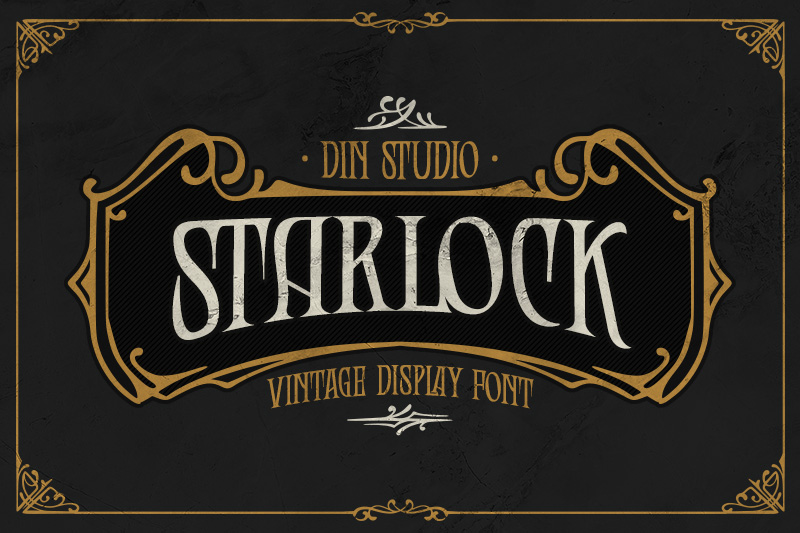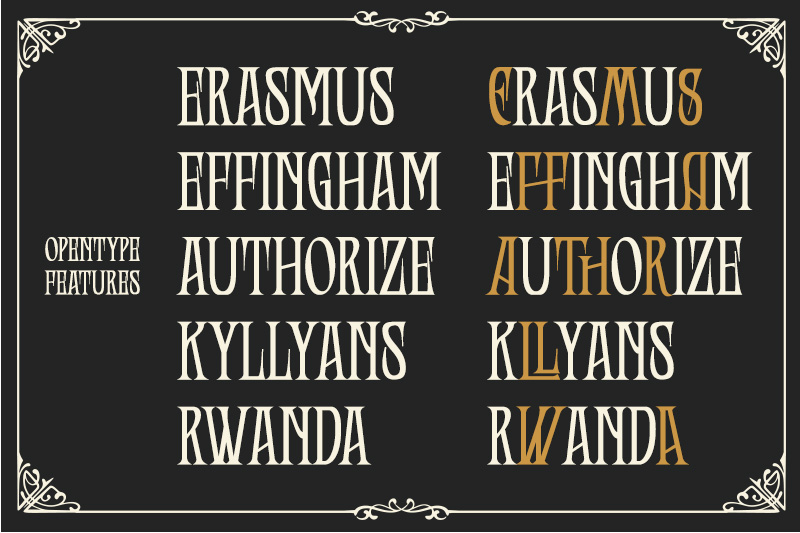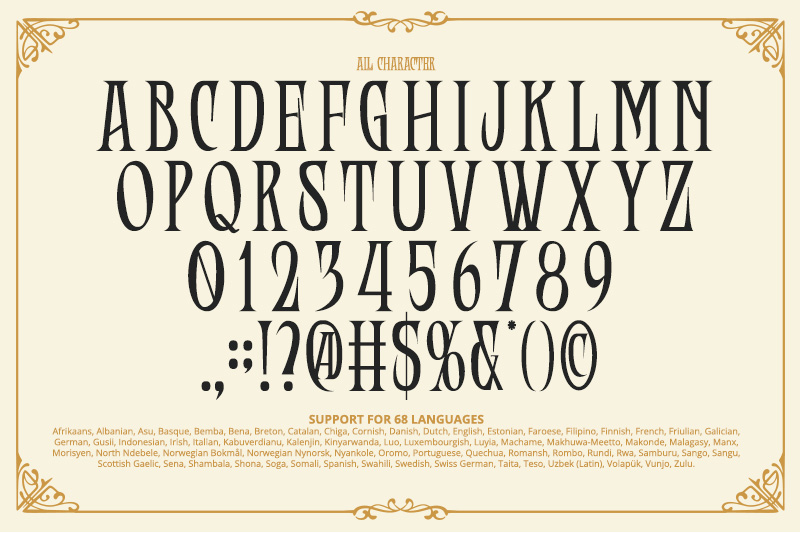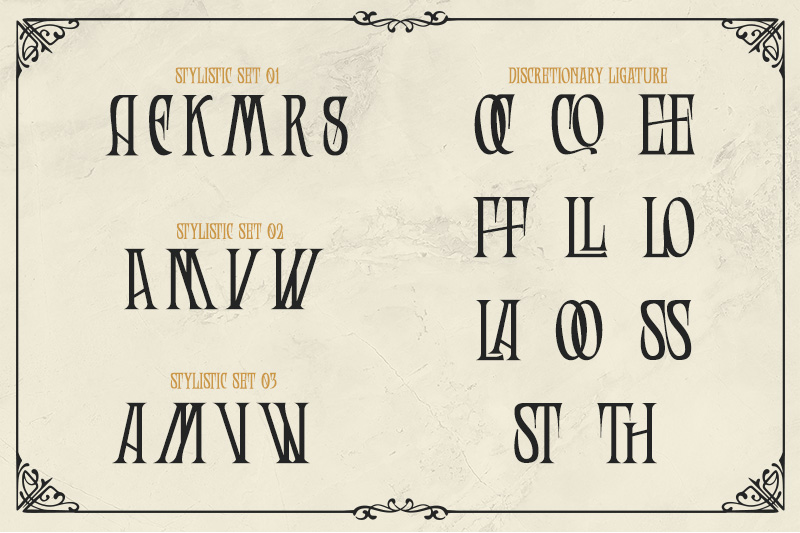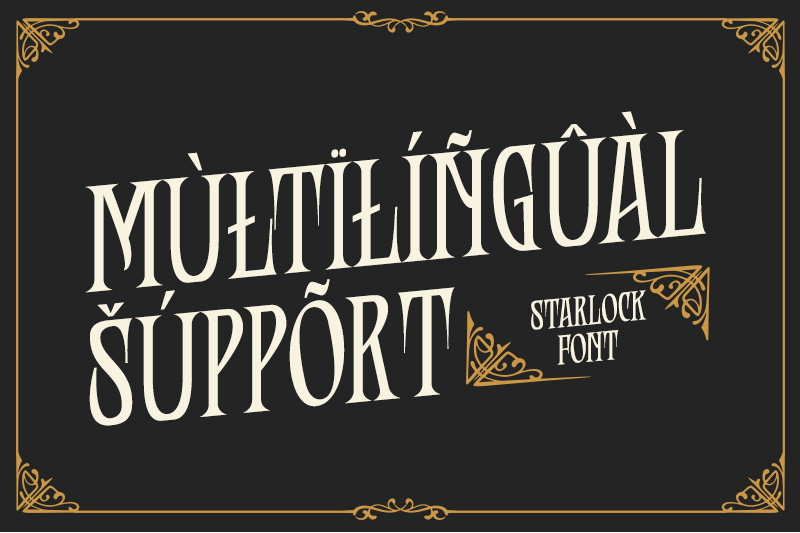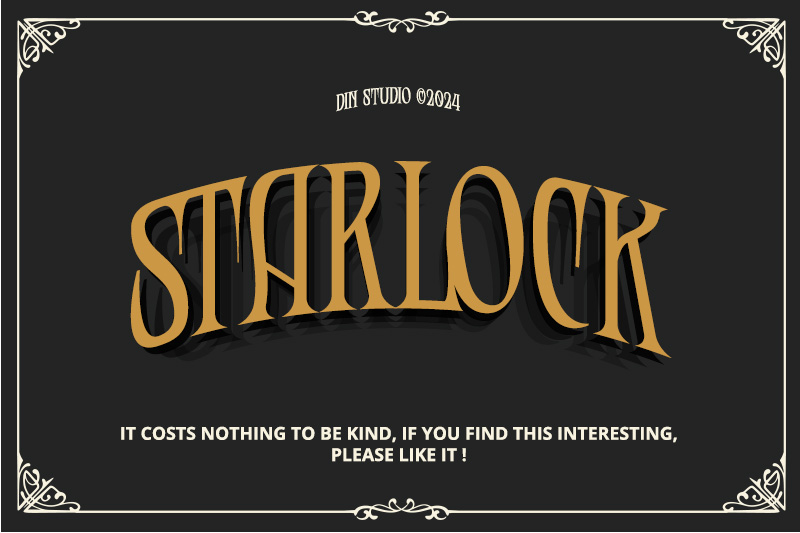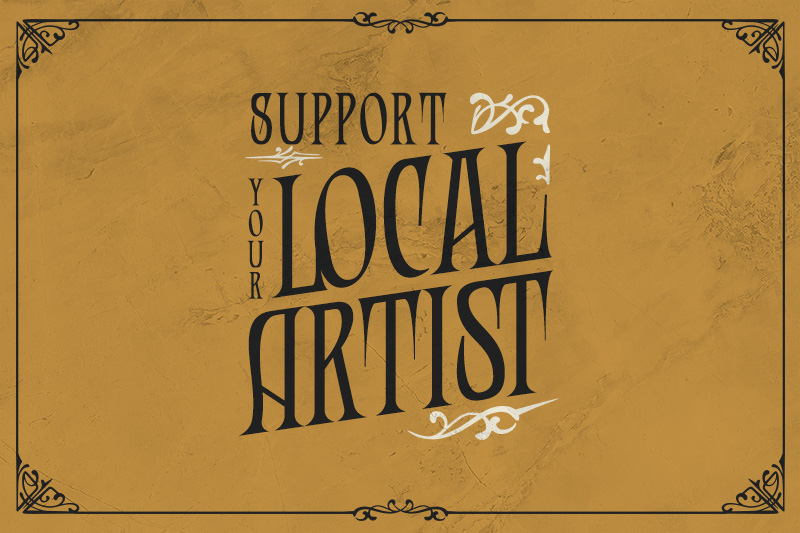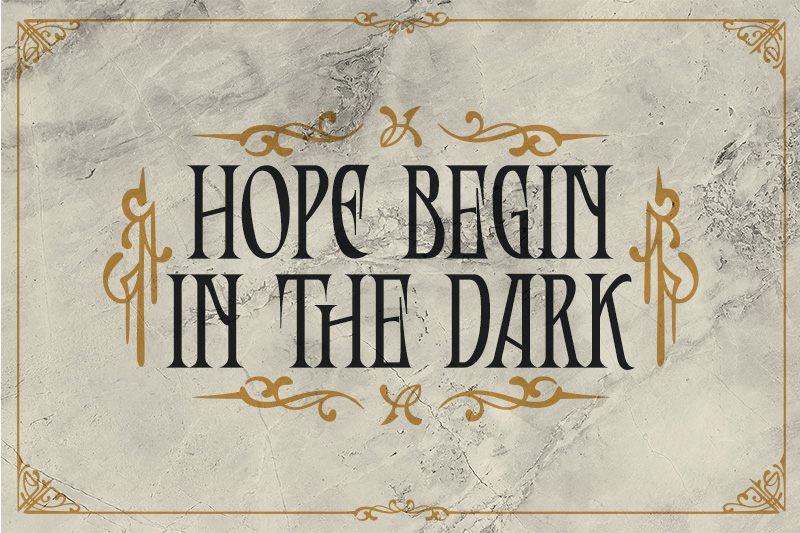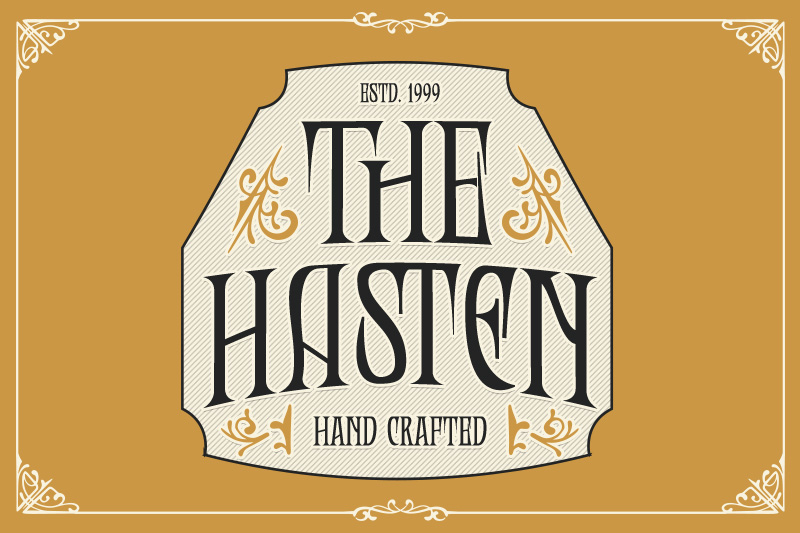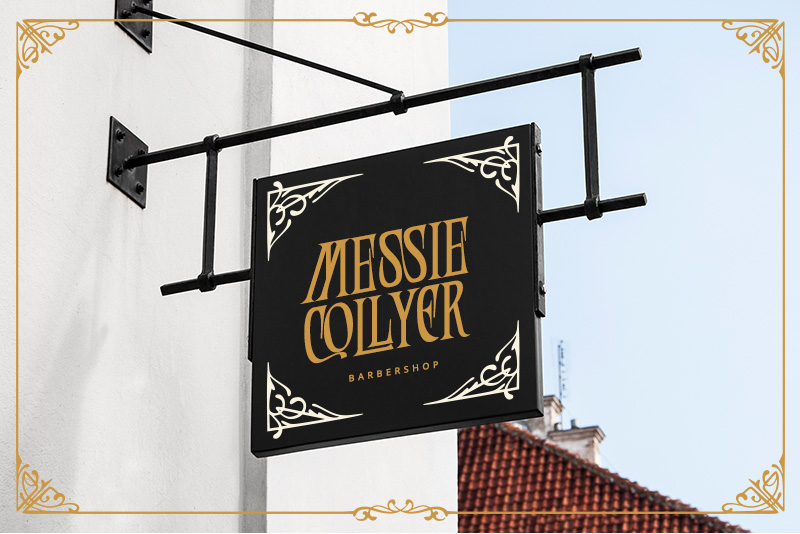
Introducing Starlock – a vintage-inspired display font that blends retro charm with subtle sophistication. Designed in all caps and a moderate weight that strikes a perfect balance between presence and elegance. The consistent letter proportions ensure a harmonious and polished look. Whether you’re aiming for a nostalgic feel or a touch of classic style, Starlock delivers a refined and memorable typographic statement. As an extra, this font gives ornaments. In addition, enjoy the features here.
- Alternates
- Multilingual Supports
Starlock fits in logos, posters, flyers, branding materials, print media, editorial layouts, and many more designs. Find out more ways to use this font by taking a look at the font preview.